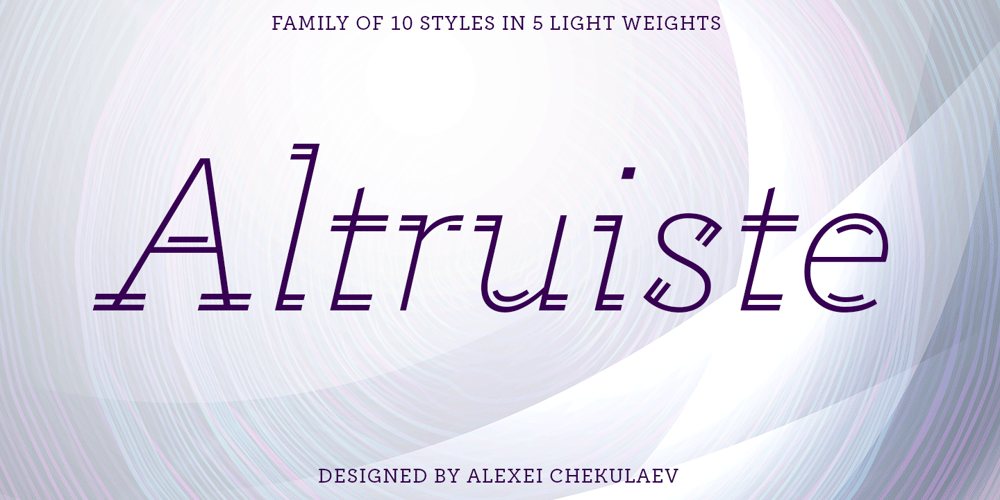
Altruiste Font Family was designed by Chekulaev Alexey and published by ParaType. Altruiste contains 10 styles and family package options. Altruiste is a decorative slab serif typeface with distinctive sharp features.It was inspired by the idea of duplicating elements, conveying typeface a unique look. It is austere, sophisticated typography marked by light shapes, yet of a strong nature.Altruiste is the perfect choice for a wide range of tasks such as creating logos, signboards, posters, invitation cards and more.The typeface is available in 5 weights, from hairline to regular with italics. Each style contains 600 extended Latin and Cyrillic characters.Altruiste was designed by Alexey Chekulaev in 2021, based on the light styles of the Postulat typeface.